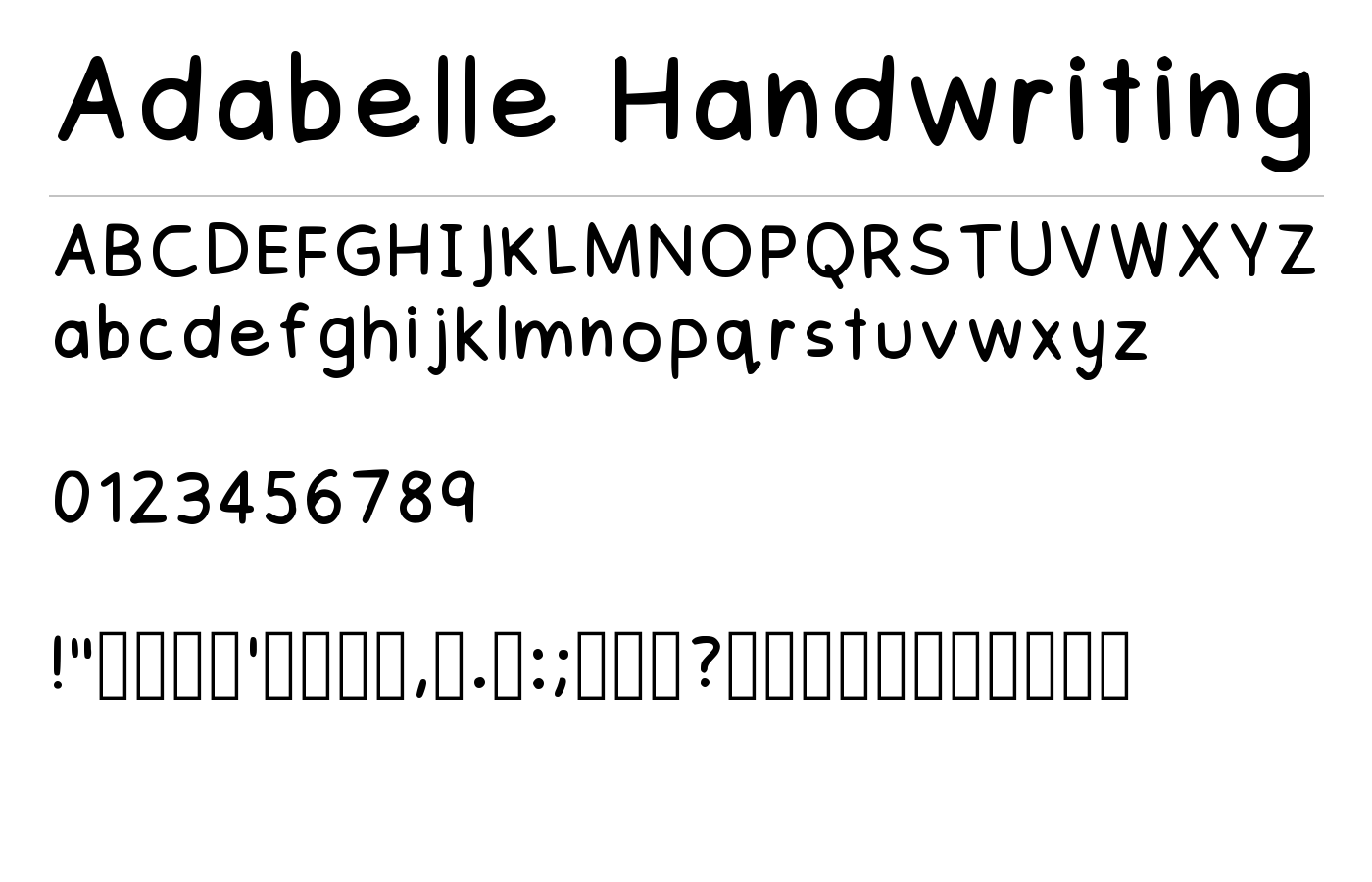
Adabelle Handwriting is a friendly and casual sans serif font that mimics natural, neat handwriting with its rounded, slightly uneven letterforms. Its light weight and open spacing give it a warm, approachable feel, making it ideal for personal projects, children’s materials, informal branding, and playful headlines. The clean, simple style ensures readability while adding a personal, human touch to any design.
Adabelle Handwriting Font
About Adabelle Handwriting Font